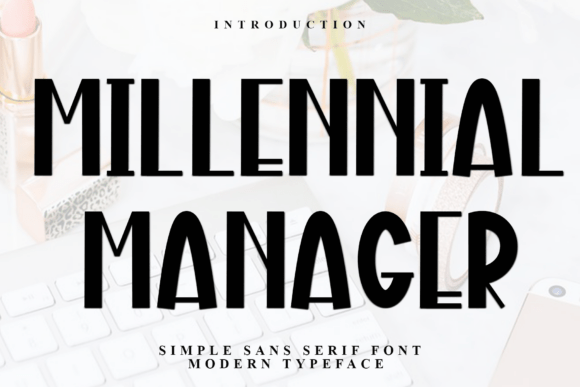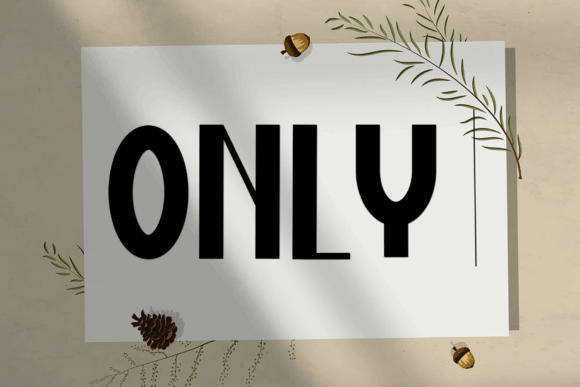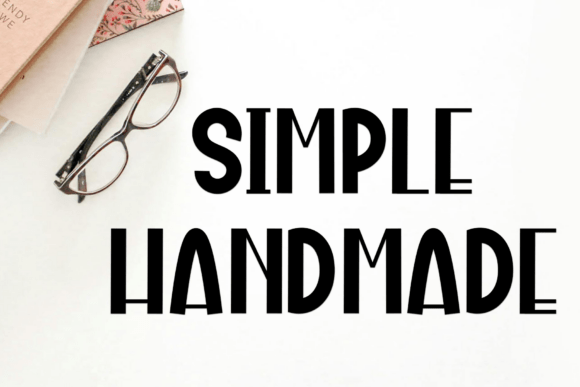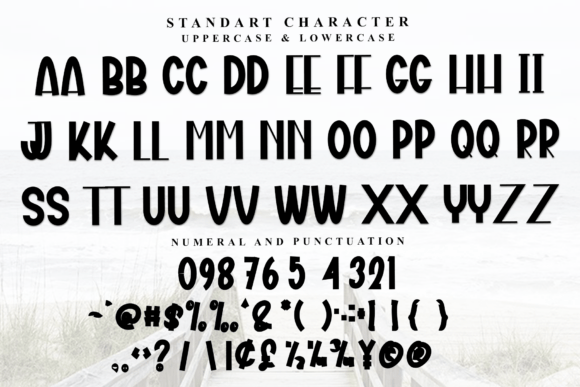
Millennial Manager Font
About the Millennial Manager Font
Discover the charm of Millennial Manager Font. This font is a perfect blend of modern aesthetics and classic appeal. Millennial Manager is a sweet and friendly handwritten font. Its natural and unique style makes it incredibly fitting to a large pool of designs. The only limit is your imagination!
Millennial Manager excels in projects requiring a friendly, approachable aesthetic. It’s ideal for branding elements like logos, social media graphics, short headlines, and packaging designs where a handwritten feel adds personality. Consider it for invitations, short quotes within marketing materials, or even website headers – but avoid using it for large amounts of body text. Its legibility suffers in extended paragraphs.
This font’s informal, friendly nature doesn’t translate well to situations demanding professionalism or formality, such as legal documents or UI elements. Its charm can be easily lost in complex layouts or small sizes.
Pair Millennial Manager with a clean sans-serif like Montserrat for a balanced contrast, or a more geometric sans-serif like Futura for a modern feel. A simple serif like Playfair Display could add a touch of elegance if a more sophisticated context is desired. Avoid pairing it with other script fonts, as this would create visual overload.
Millennial Manager Font Usage Examples
Millennial Manager Font Example